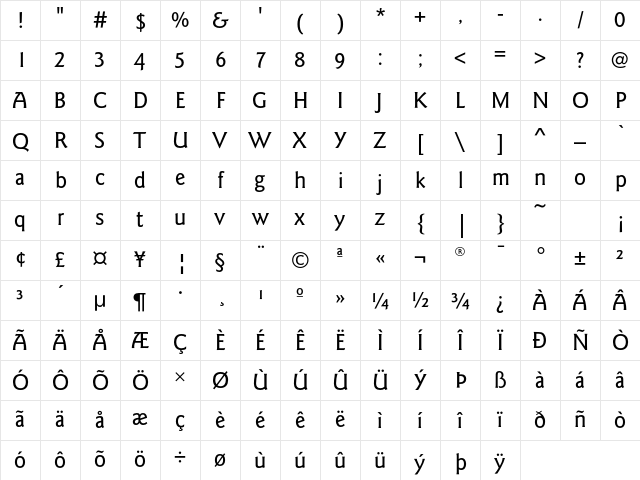
Complete GoudySansEF Medium glyph index. Displaying only characters natively supported by GoudySansEF Medium font.
Design Context for GoudySansEF
GoudySansEF is a composed and adaptable typeface that performs quietly and consistently across a wide range of design contexts.